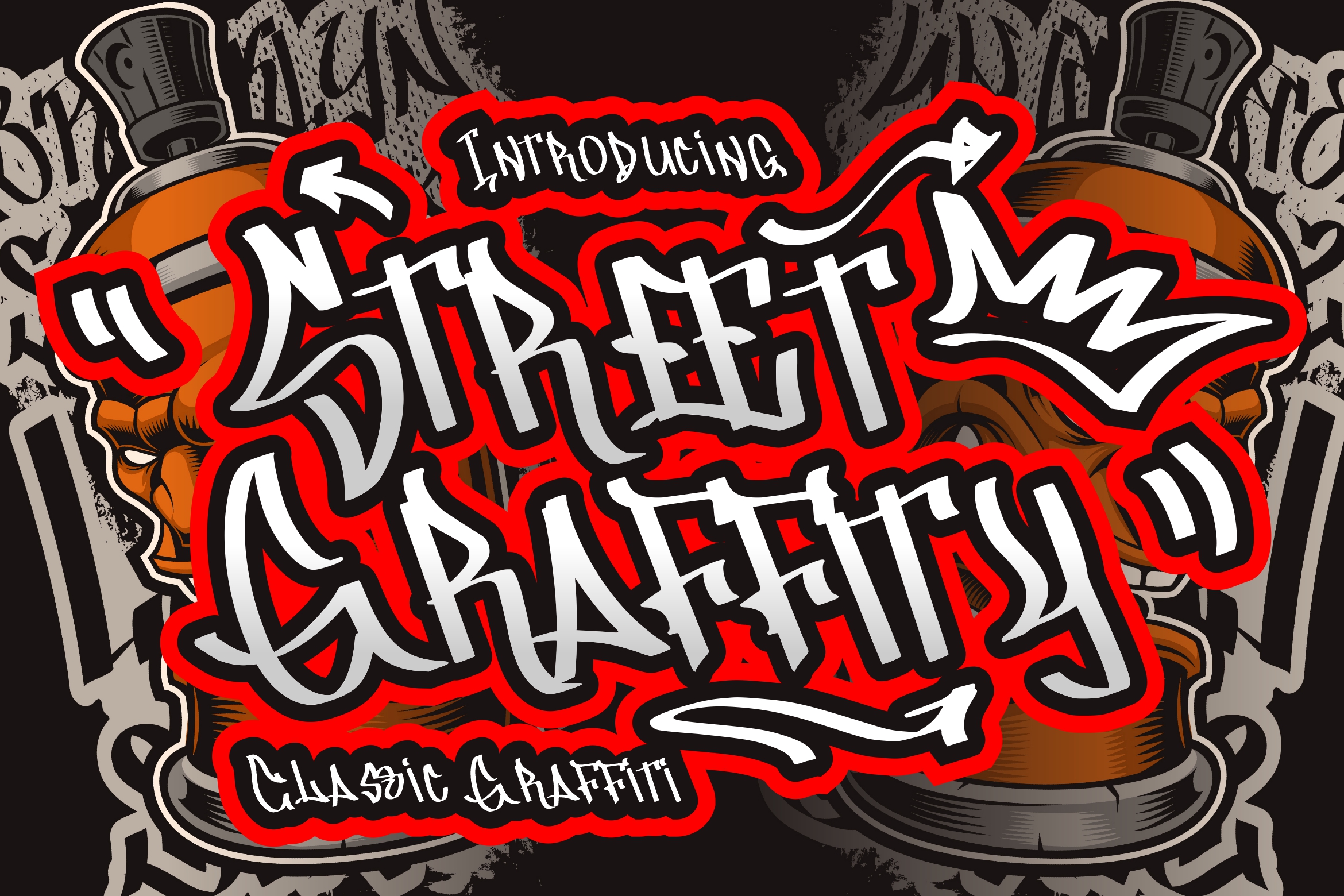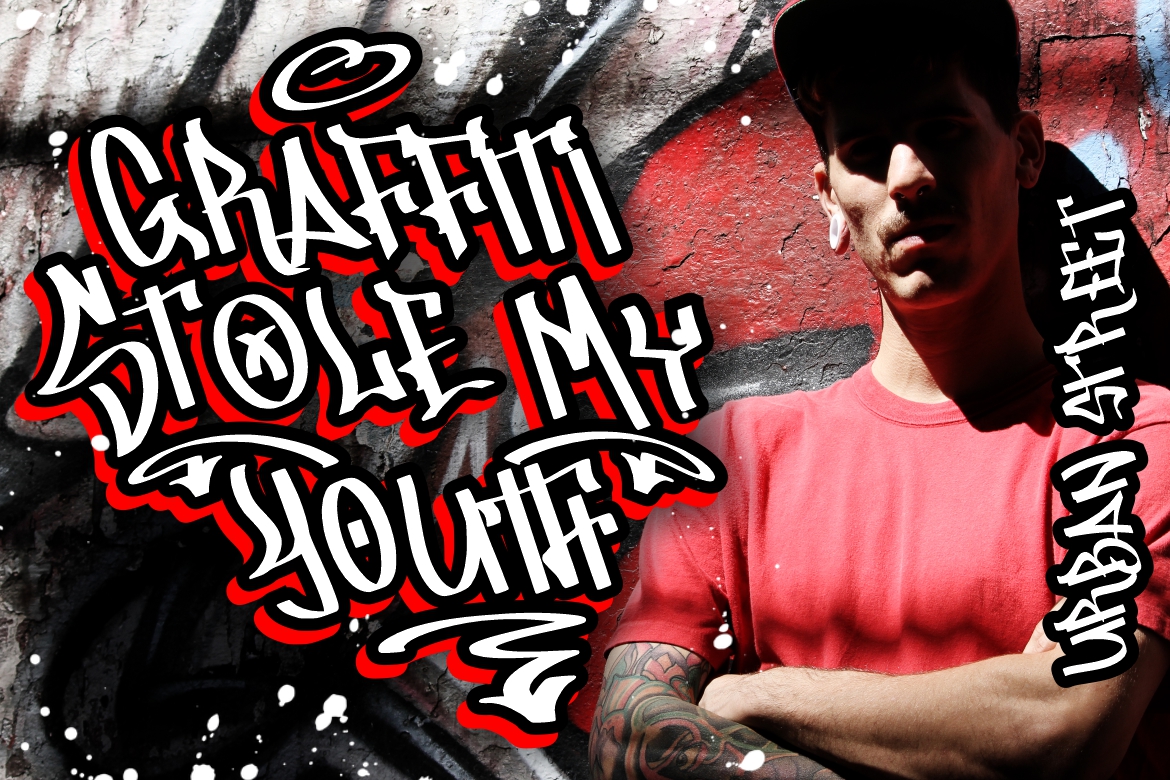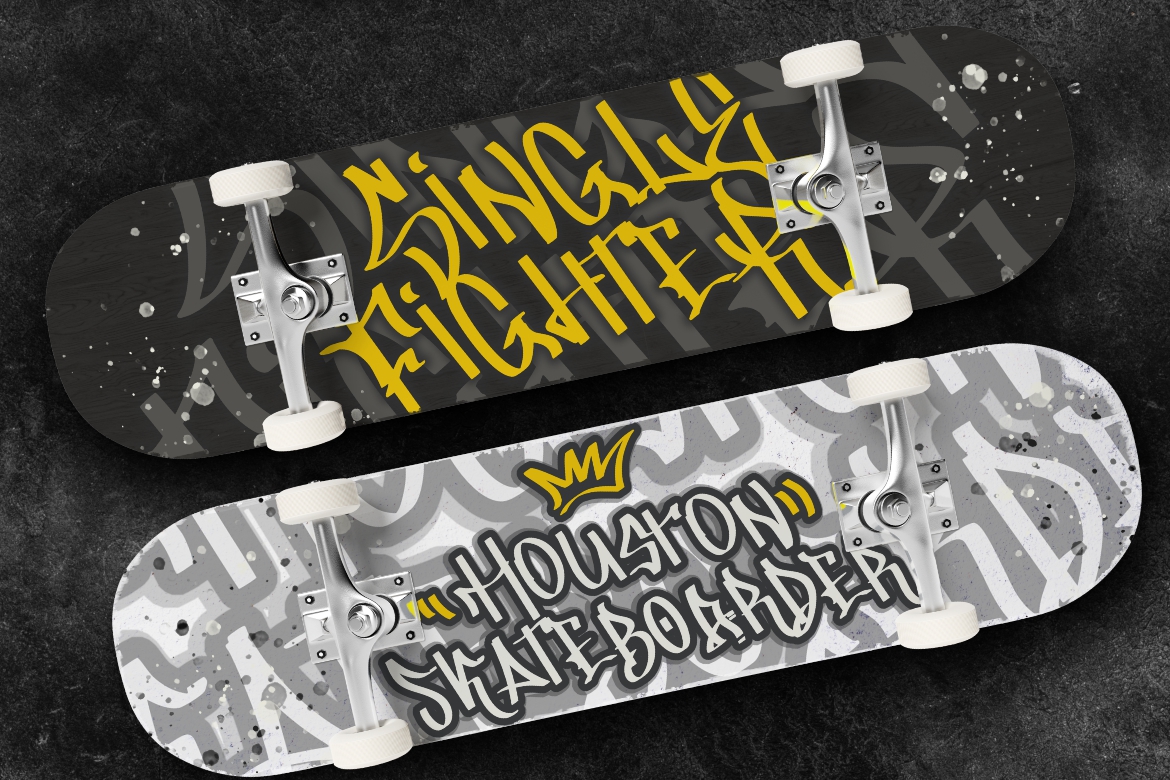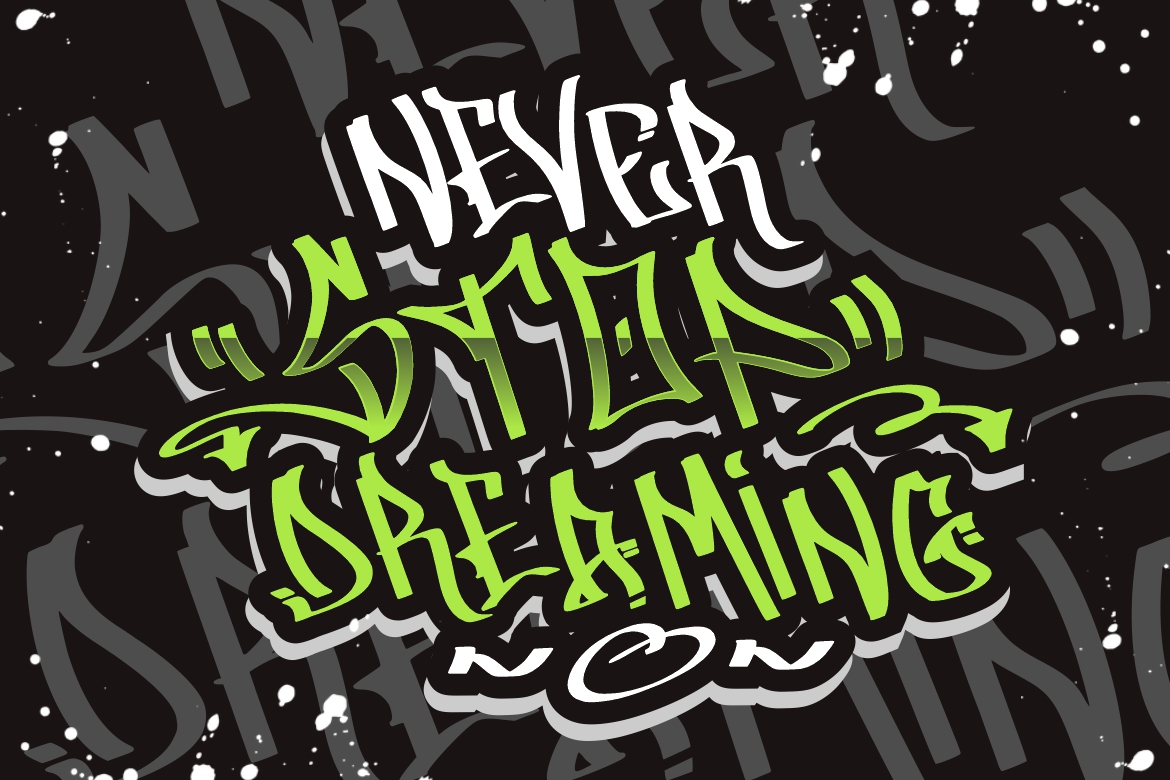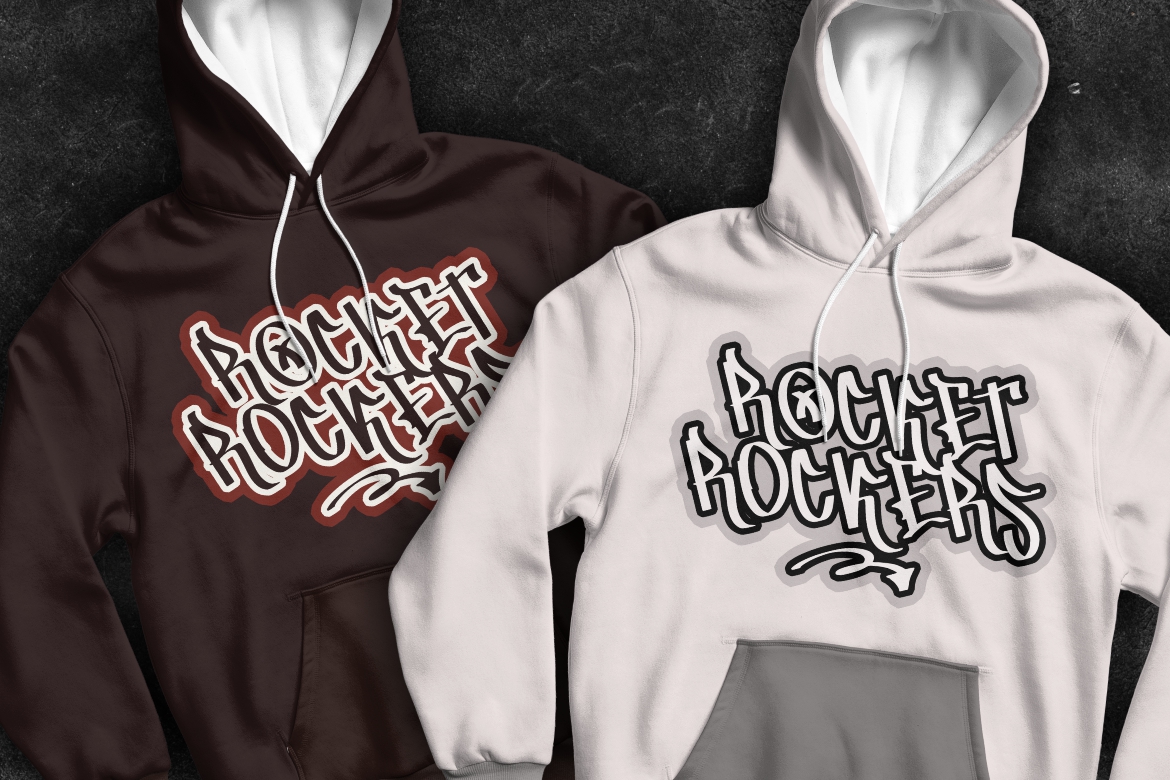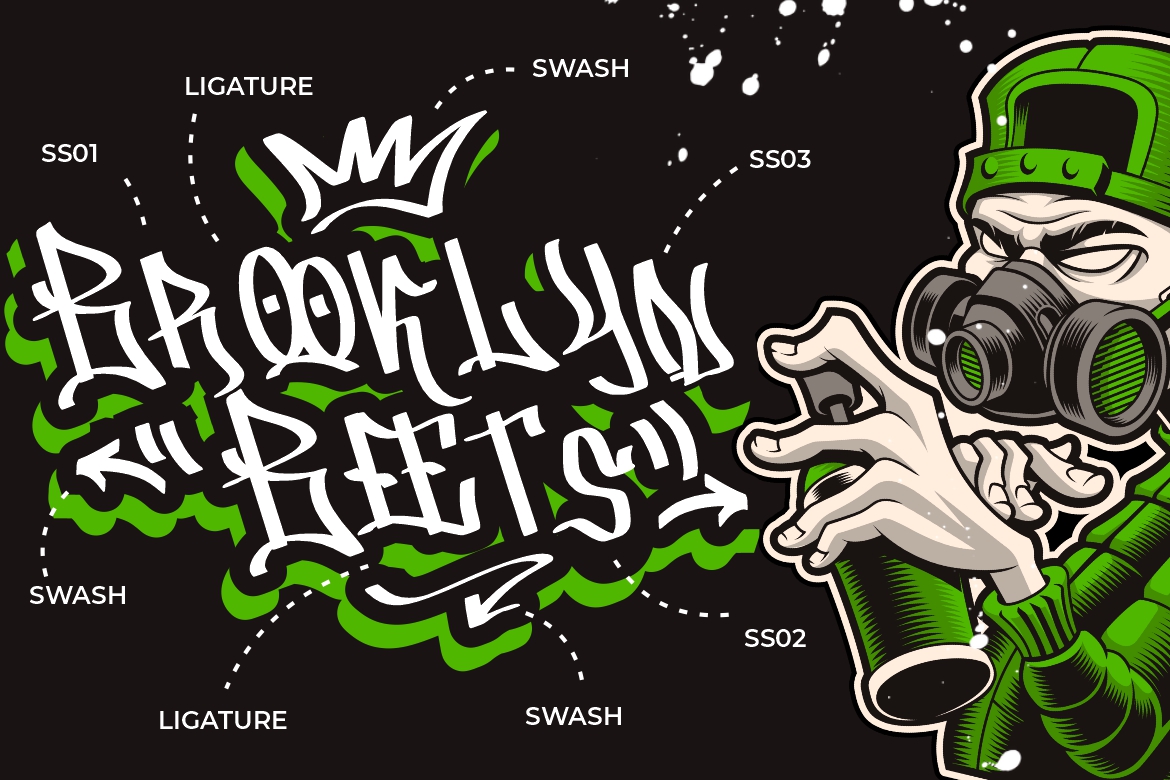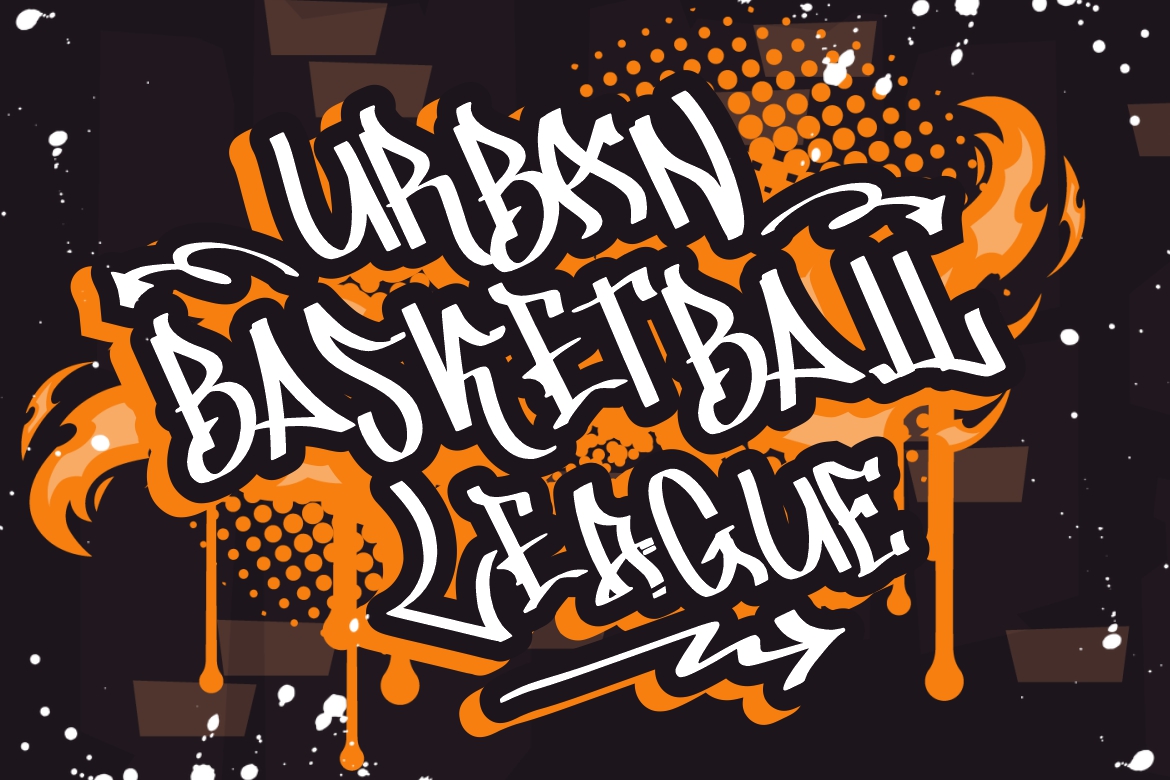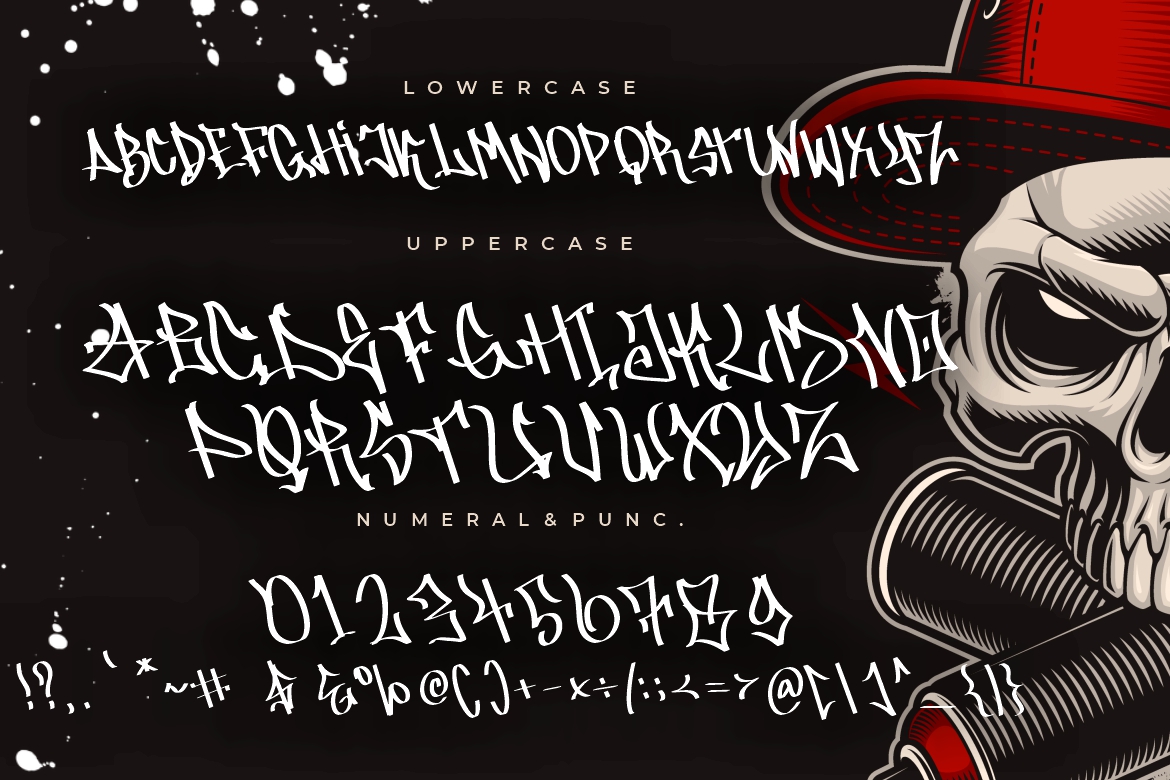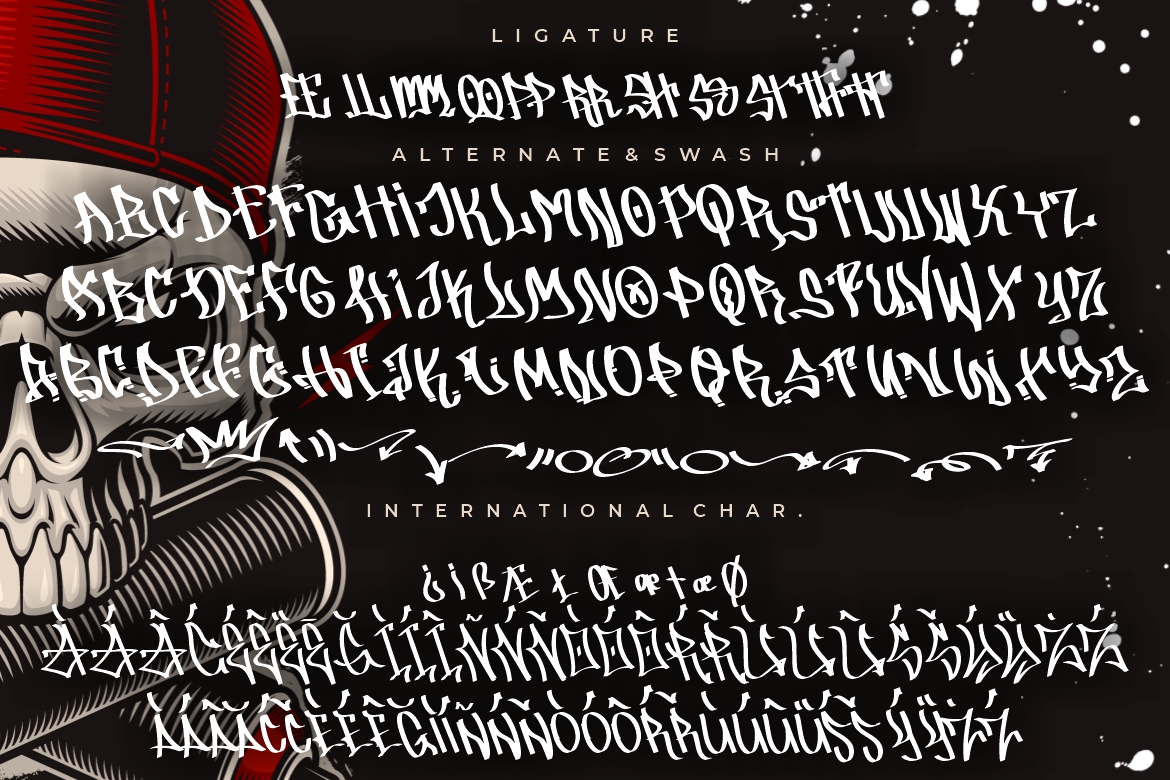
Street Graffity Advertisement Font
Introducing Street Graffity – A classic graffiti font with various alternate and ligature. This font will looks awesome and amazing in many way to your latest project. The font is perfect for movie title, logo, blogging, brand identity, book title, social media, branding, wedding invites, cards or simply use it in your next design project and suitable to use for many occasion.
• Ton of glyphs
• Ligature & Alternate